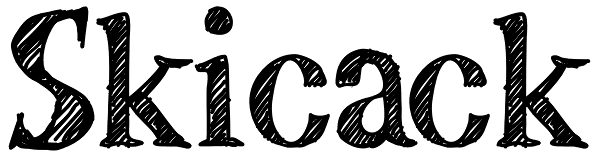
Skicack
Skicack is scribbled form of classic bold font. Creates nice texture when used in small sizes (especially printed), and hard heavy look in big sizes. Comes with complete Central European character set, and few additional symbols (see gallery...